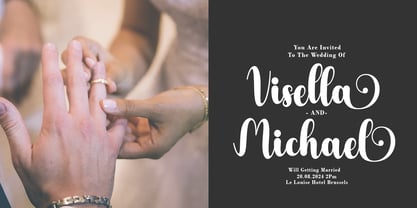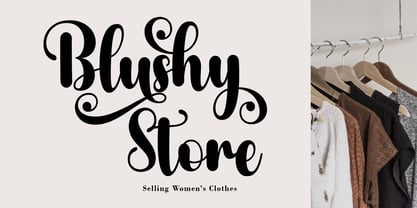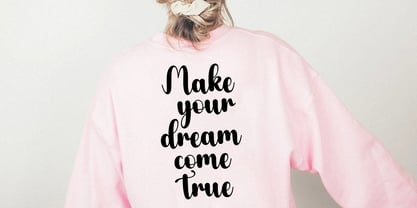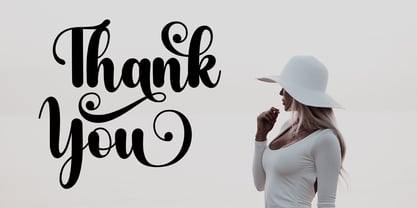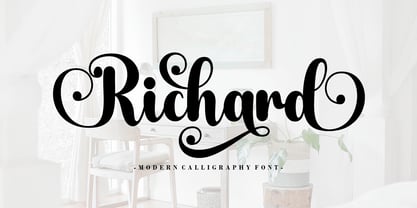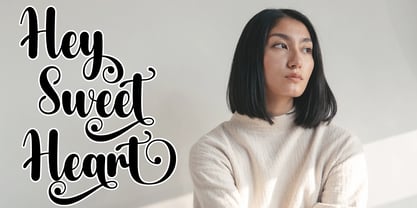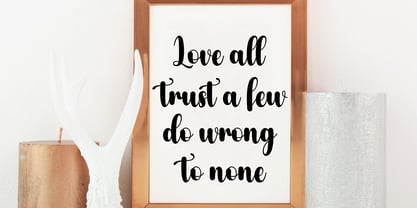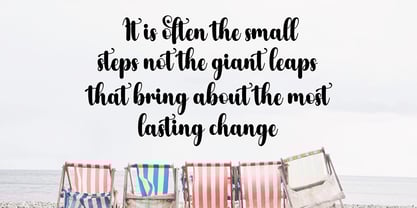
Richard Script
by Good Design
The Richard Script Font Family was designed by Agus Pujiyono and published by Good Design. Richard Script contains 1 styles. More about this family
Richard Script is a typeface or font design that can be used to style text. It is characterized by tails and is slightly cursive, often giving the appearance of playful or relaxed text. Richard Script is widely used for design projects such as invitations, greeting cards, posters, headers or just used to express words over the background.
Designers: Agus Pujiyono
Foundry: Good Design